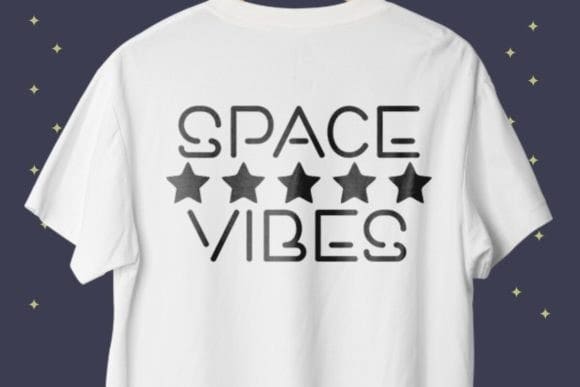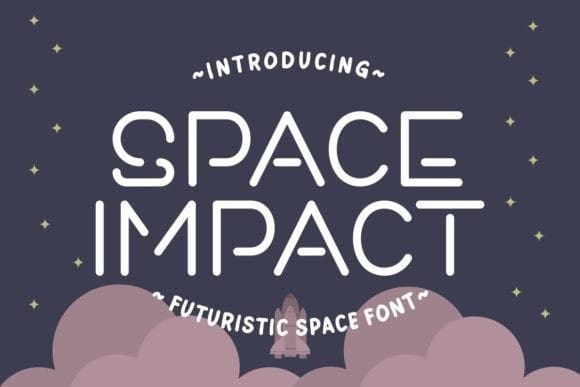
Space Impact Font
Space Impact Font is a dynamic and impactful display font with a futuristic style. SpaceImpact is perfect for creating sleek and trendy sci-fi designs, your designs resonate with the powerful essence of the future.